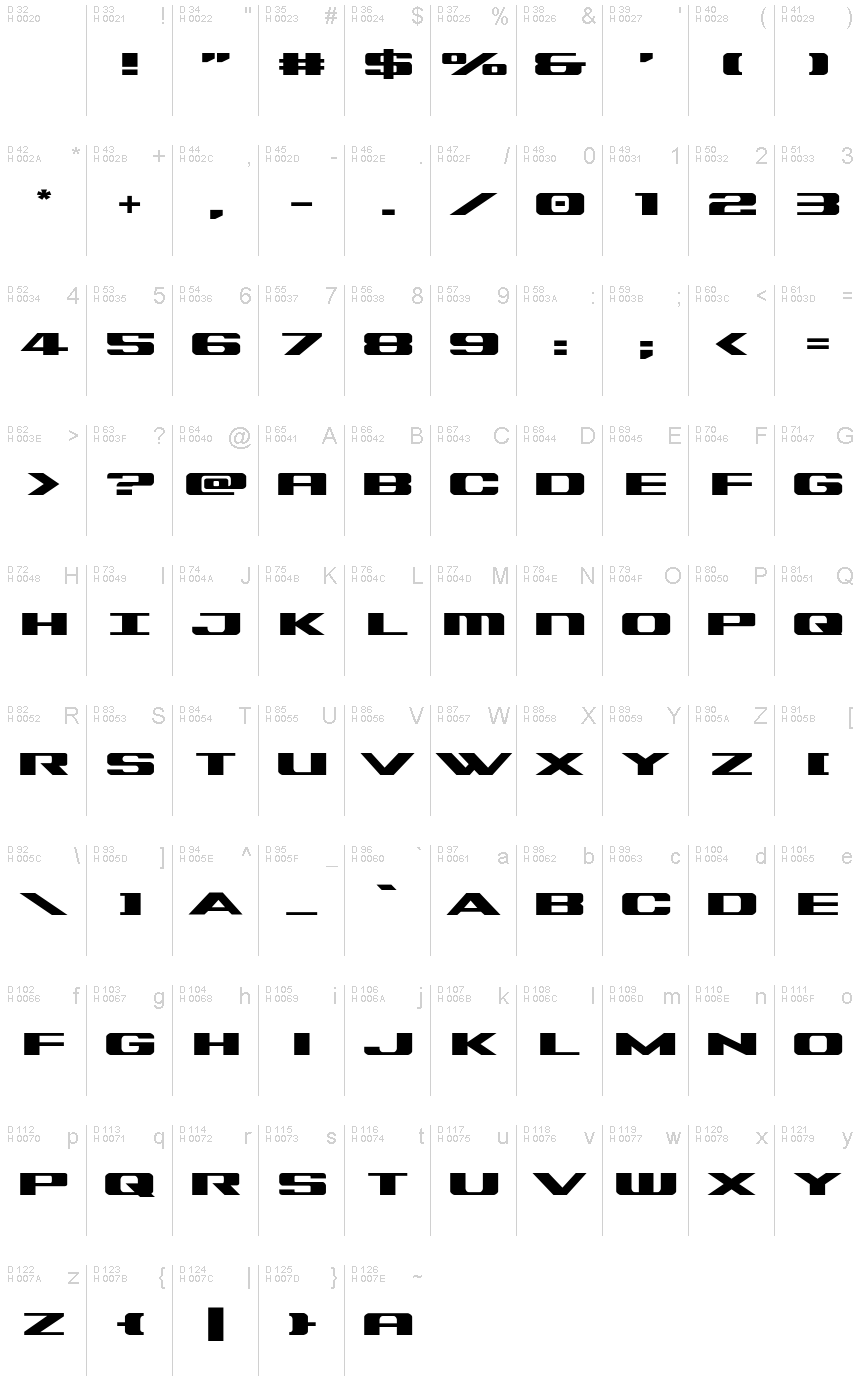
Tigershark Expanded, designed in 2024 by Iconian Fonts, is a free modern display font with a wide, assertive, machine-cut profile. The broad, weighty letters combine rounded rectangular shapes, sharp diagonal slices, and precisely controlled gaps in a sleek industrial silhouette.
The lettering's retro-futurist character suits science-fiction posters, game title screens, and electronic music packaging, where its extreme width can suggest speed, hardware, or engineered power. It also fits motorsport branding and apparel graphics, with the clipped corners and internal cuts acting like vents or panel seams within the larger design.